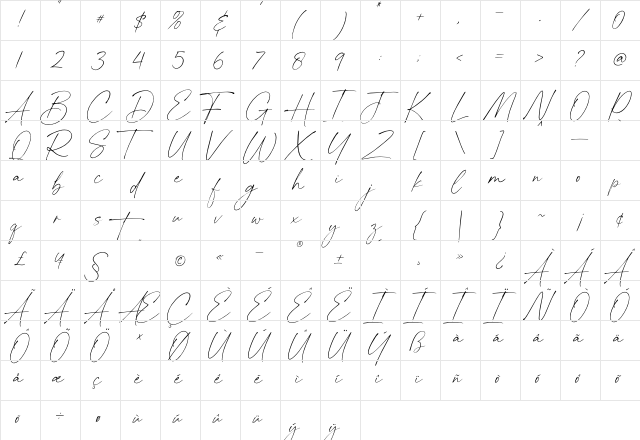
the artisan Regular
| Foundry | Ef Studio - Luthfi Fauzi |
| Designer | Ef Studio - Luthfi Fauzi |
Design Context for the artisan Typeface
the artisan is a composed and adaptable typeface that performs quietly and consistently across a wide range of design contexts.